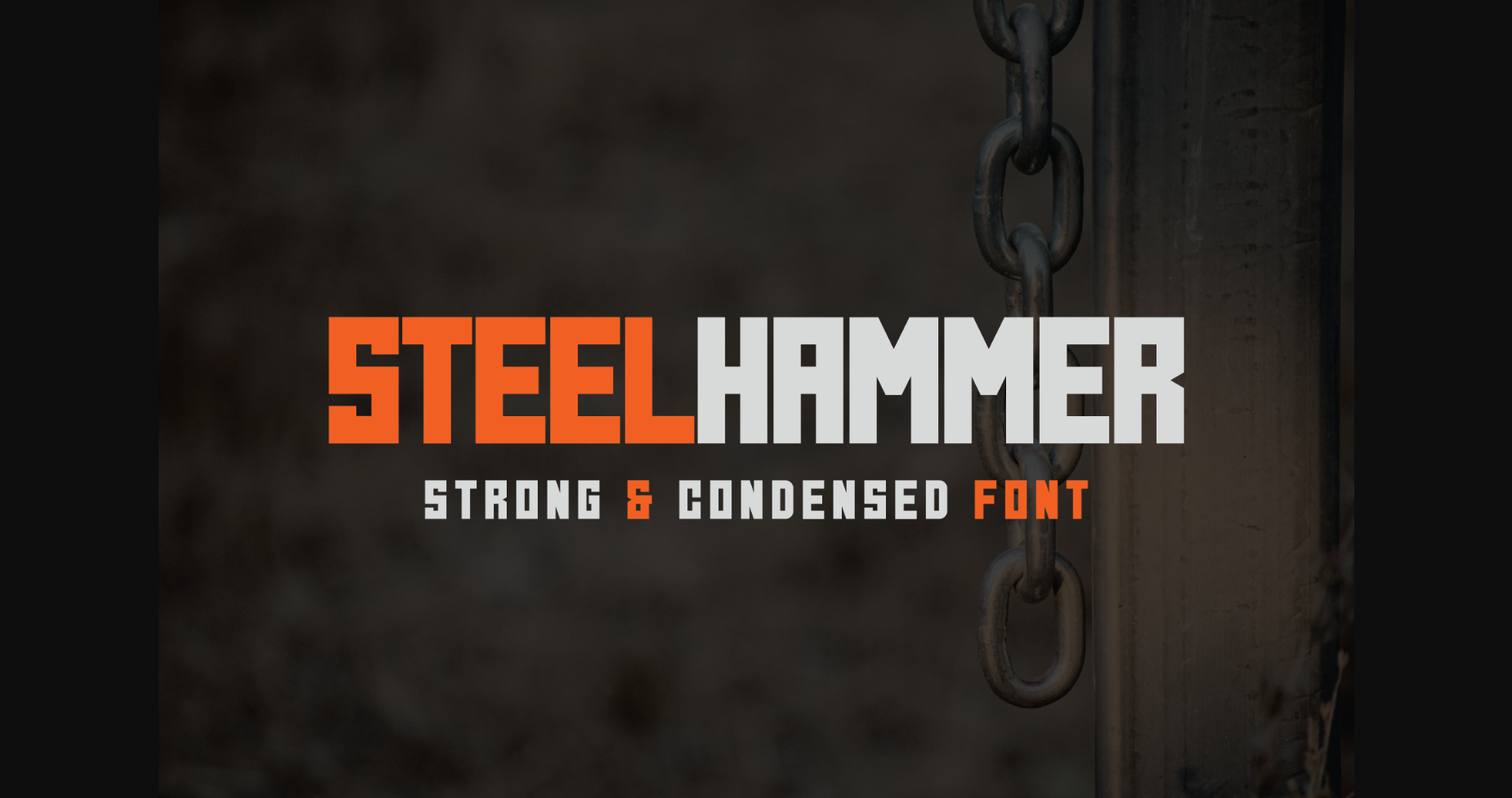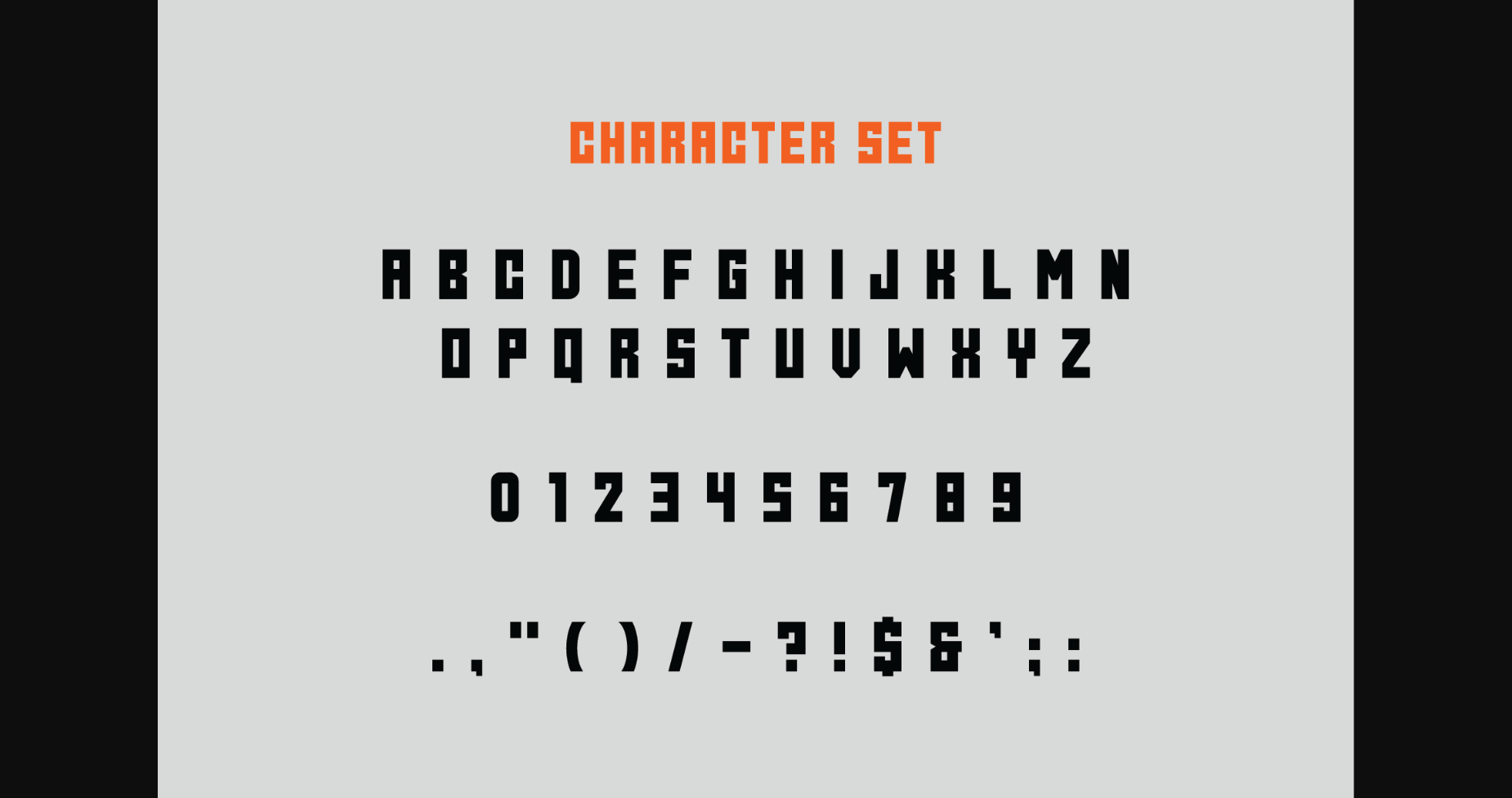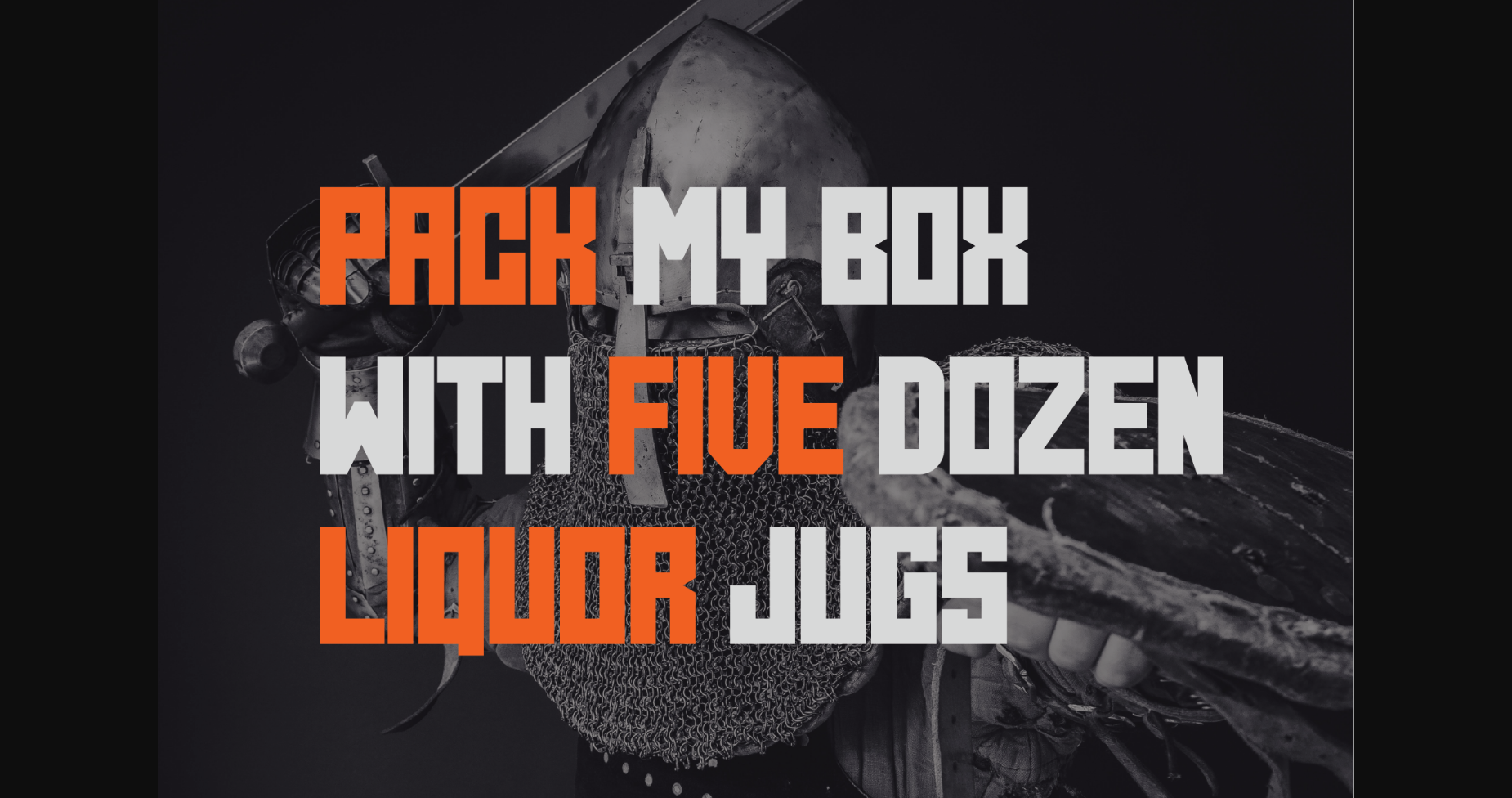
Steel Hammer Font
About Steel Hammer Font
Steel hammer is a bold condensed font with geometric aspects, this bold font is a great choice for titles, t-shirt designs, posters, social media posts, and so on.